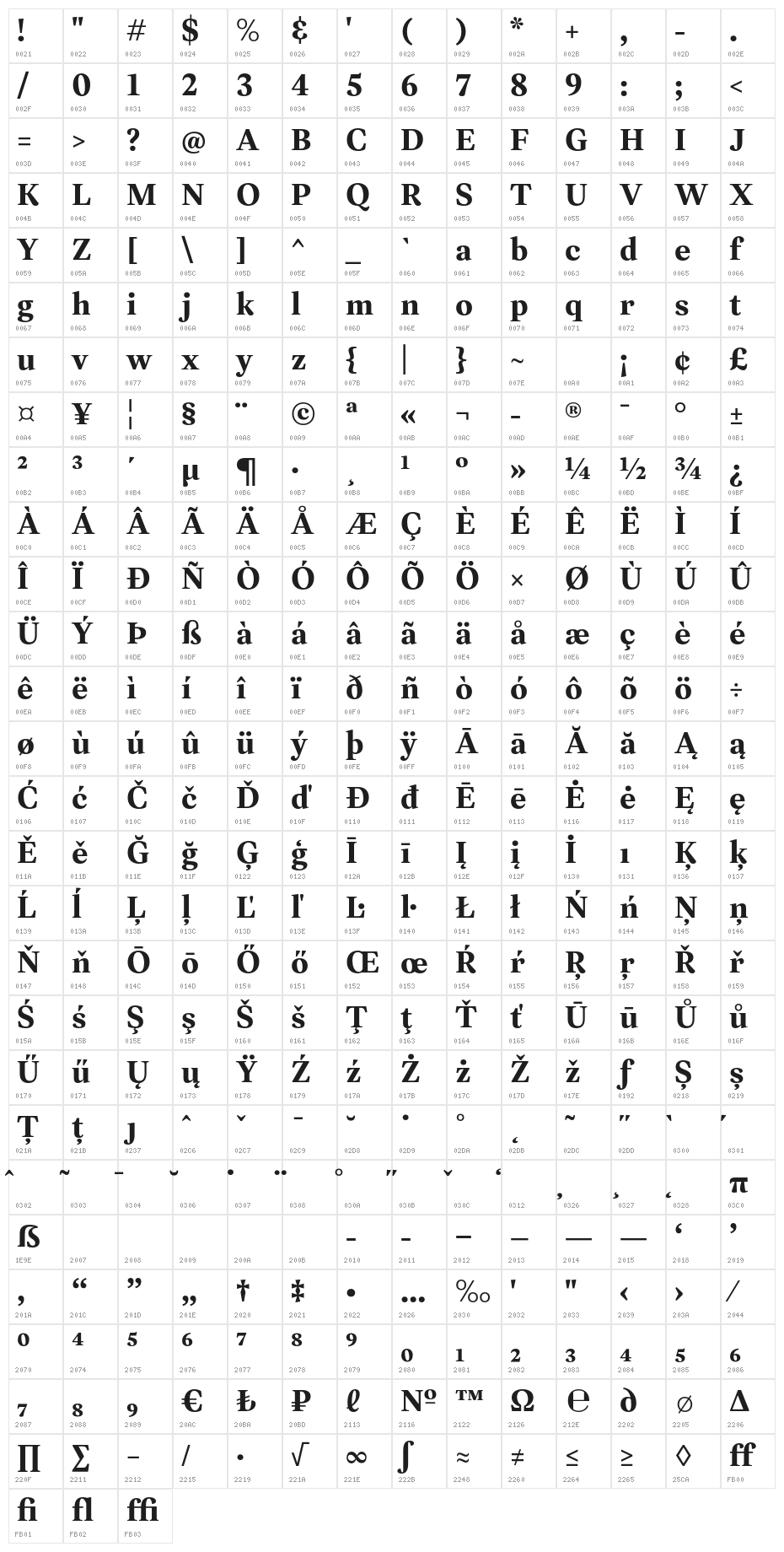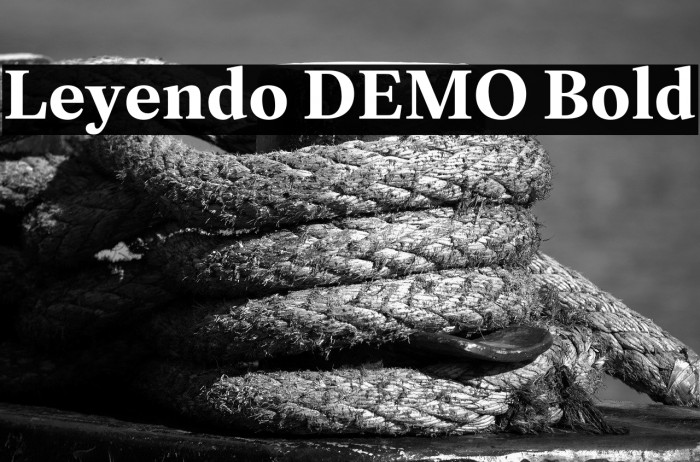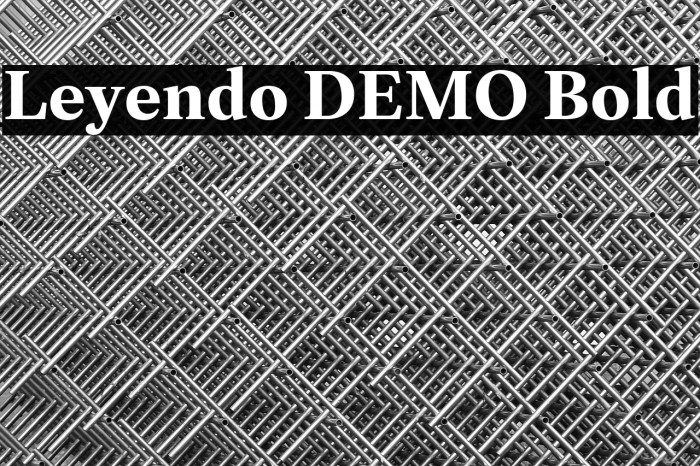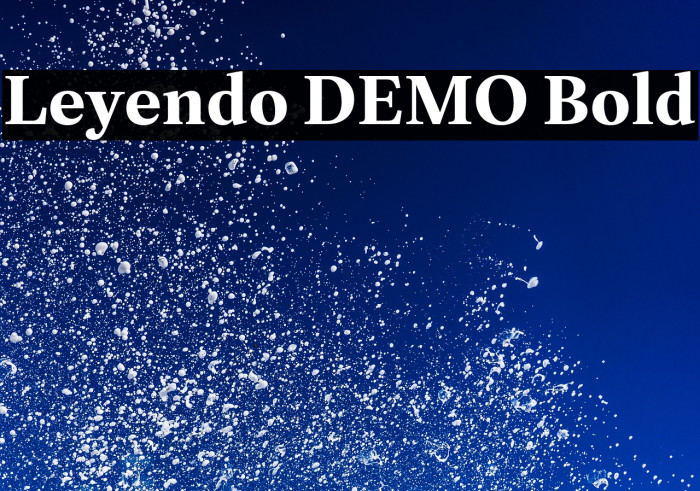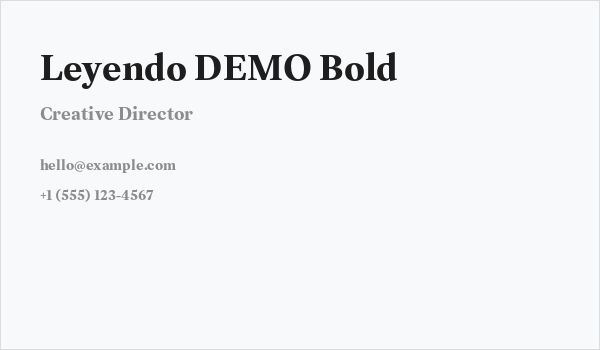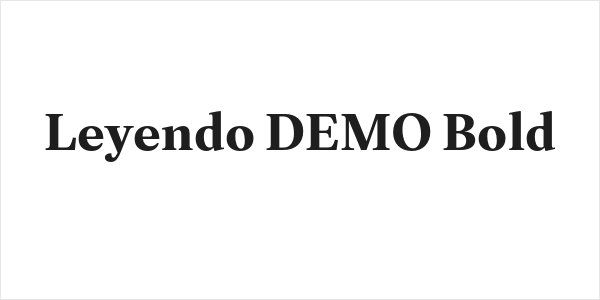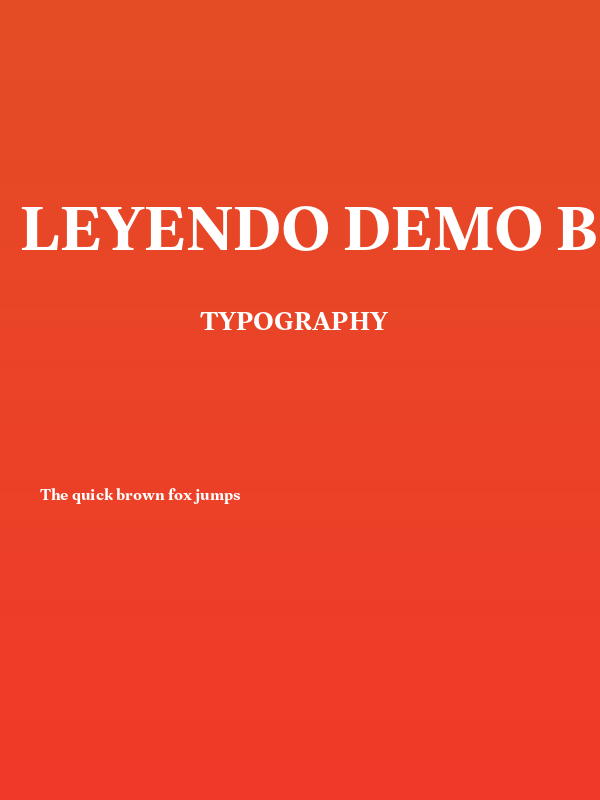
Leyendo DEMO Bold Font
Leyendo DEMO Bold Description
This font features a bold and commanding presence with its strong serif design. The characters are well-defined with a classic serif structure, providing a sense of tradition and authority. The uppercase letters are robust and impactful, while the lowercase letters maintain a consistent weight, ensuring readability. The numerals are clear and prominent, making them suitable for various applications. Special characters are elegantly integrated, maintaining the overall aesthetic. The font's boldness and clarity make it ideal for headlines and titles, where attention is paramount.
| Proposed Projects | Ideal for editorial design, book covers, branding, and advertising where a strong and traditional look is desired. |